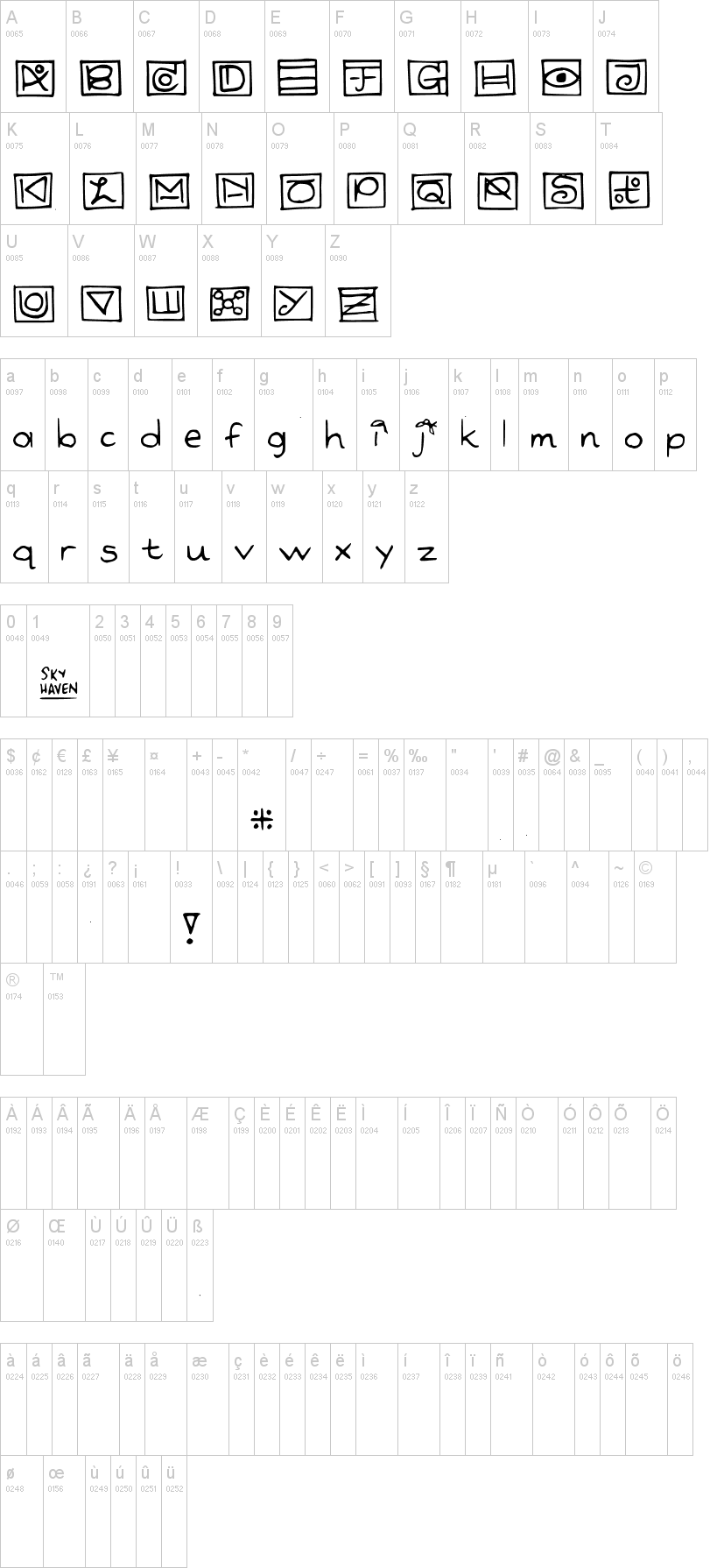
Шрифт Nonsense
Another thing created with the aid of http://www.myscriptfont.com! I think this is great for signatures and initials and such. Have fun! Don't get hurt!